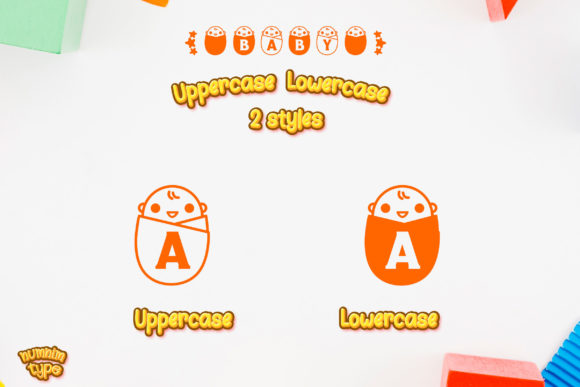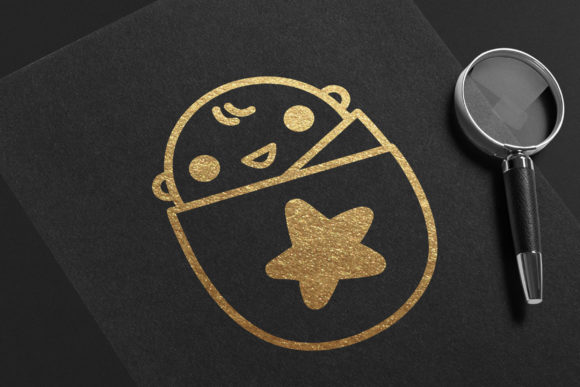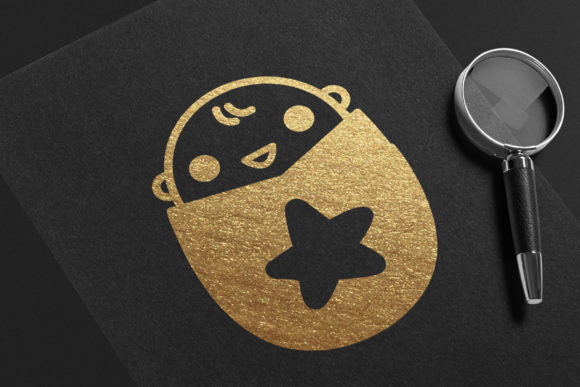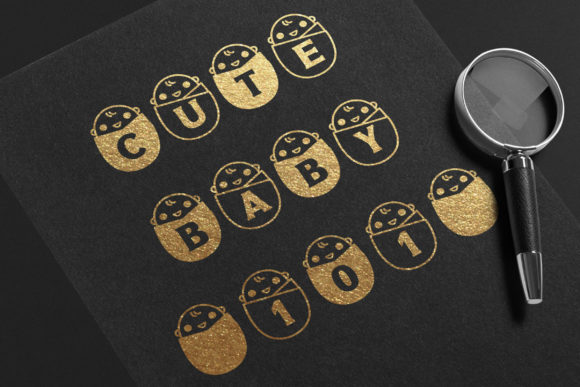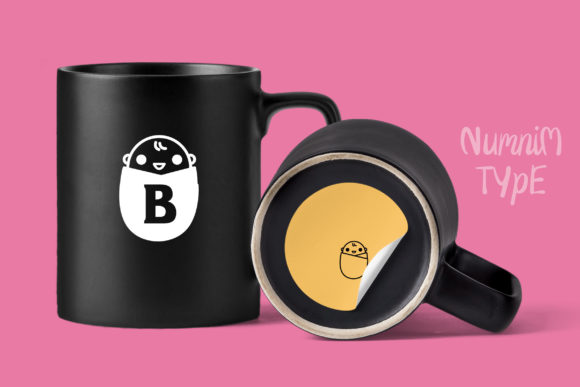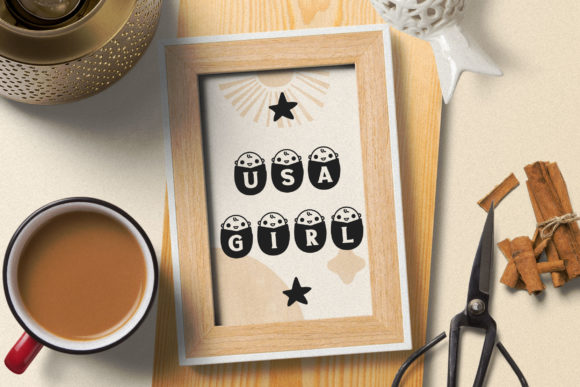
Baby Font: The Ultimate Decorative Font for Your Designs
Are you looking for a font that can add a playful and bold accent to your designs? Look no further than the Baby Font! This cool and uniquely designed decorative font is perfect for designers and crafters who want to create eye-catching and fun projects. In this article, we’ll take a closer look at the Baby Font, its features, and how you can use it to elevate your designs.
What is Baby Font?
Baby Font is a decorative font that is designed to be fun and playful. Each character is carefully crafted to bring a sense of joy and whimsy to your designs. The font is perfect for creating bold accents, headings, and titles that will grab the attention of your audience. Whether you’re designing a logo, a poster, or a social media graphic, the Baby Font is sure to make your project stand out.
Key Features of Baby Font
So, what makes the Baby Font so special? Here are some of its key features:
- Unique Design: Each character in the Baby Font is uniquely designed to be fun and playful. The font features a range of creative and quirky designs that will add a touch of personality to your projects.
- Bold Accent: The Baby Font is perfect for adding a bold accent to your designs. The font features a range of bold and eye-catching characters that will grab the attention of your audience.
How to Use Baby Font in Your Designs
Using the Baby Font in your designs is easy! Here are some tips to get you started:
- Headings and Titles: Use the Baby Font to create bold and eye-catching headings and titles. The font is perfect for creating attention-grabbing text that will draw the eye of your audience.
- Logos and Branding: The Baby Font is perfect for creating fun and playful logos and branding materials. Use the font to create a unique and memorable brand identity.
- Social Media Graphics: Use the Baby Font to create eye-catching social media graphics that will stand out in a crowded feed. The font is perfect for creating bold and attention-grabbing text that will grab the attention of your audience.
Benefits of Using Baby Font
So, why should you use the Baby Font in your designs? Here are some benefits:
- Unique and Creative: The Baby Font is a unique and creative font that will add a touch of personality to your designs. The font is perfect for designers and crafters who want to create eye-catching and fun projects.
- Versatile: The Baby Font is versatile and can be used in a range of design projects, from logos and branding to social media graphics and posters.
In conclusion, the Baby Font is a cool and uniquely designed decorative font that is perfect for designers and crafters who want to create eye-catching and fun projects. With its unique design, PUA encoding, and bold accent, the Baby Font is sure to elevate your designs and make them stand out. Whether you’re creating a logo, a poster, or a social media graphic, the Baby Font is a great choice.